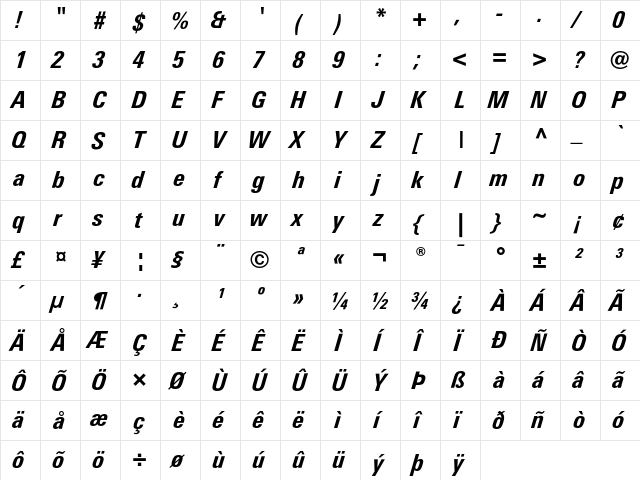
LinotypeUnivers CondHeavyItalic
Design Context for LinotypeUnivers Typeface
LinotypeUnivers takes a measured approach to typography — its balanced proportions and neutral character make it a reliable workhorse for both digital and print work. The dynamic lean of this cut emphasises speed and emphasis in any layout. The condensed width makes it efficient for tight spaces without sacrificing legibility.
Pro Tip: Use LinotypeUnivers for emphasis, pull quotes, and subheadings where its slanted energy can add rhythm to the layout.